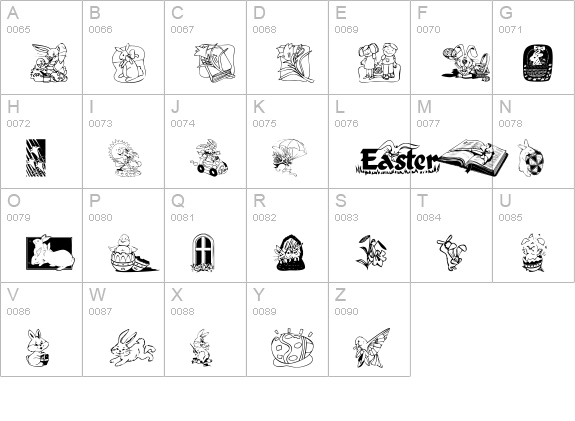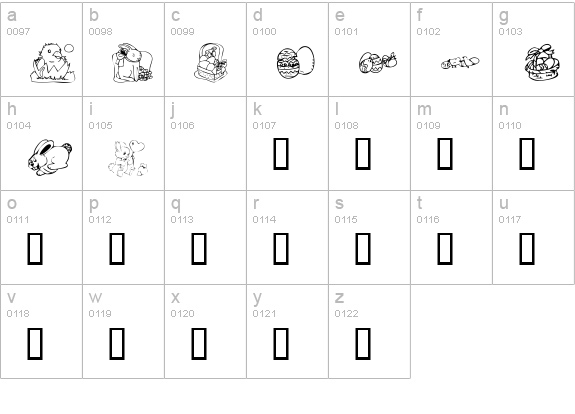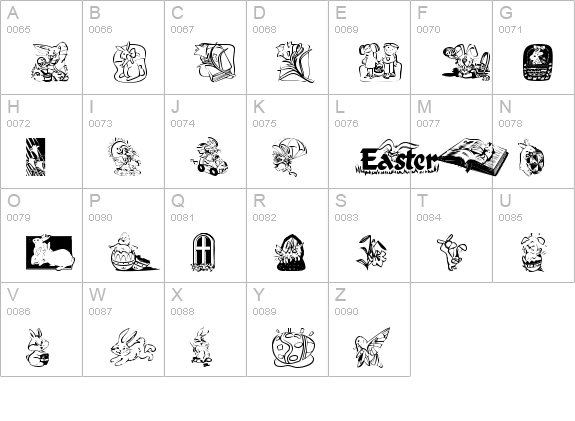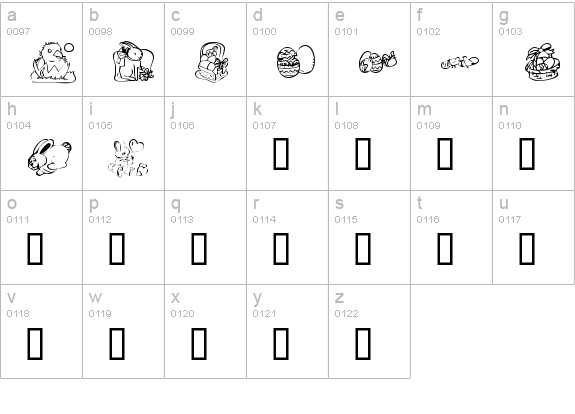
KR Easter 2003 Font Details
The KR Easter 2003 font is a whimsical and playful typeface that exudes the charm and joy of the Easter season. Its unique design features intricate details and a festive flair that make it perfect for adding a touch of Easter spirit to your projects. Whether you're creating greeting cards, invitations, or decorations, this font will bring a delightful and cheerful vibe to your designs. Best of all, the KR Easter 2003 font is available for free download at FontsMarket.com. This means you can easily access this charming font and use it in your Easter-themed projects without any cost. Don't miss out on the opportunity to enhance your designs with this delightful and festive font that captures the essence of Easter celebration. Download the KR Easter 2003 font today and let your creativity shine with its cheerful and whimsical style.